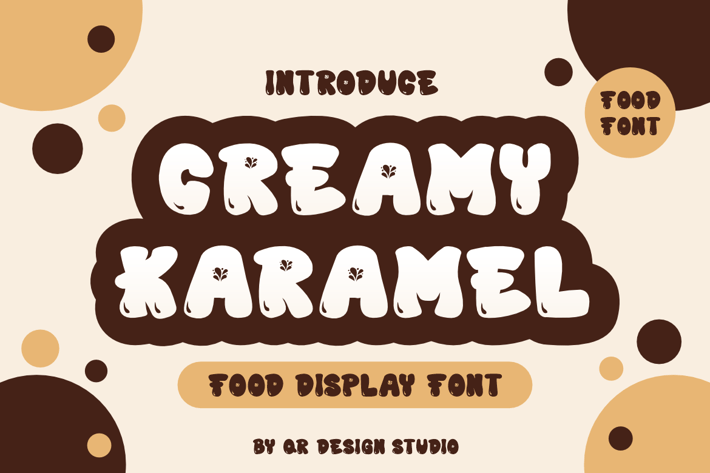
Creamy Karamel - Food Display Font
Creamy Karamel - Food Display Font is a bold and authentic display font.
The font is suitable for any branding project like logo, food, kids, poster, sport, and many more.